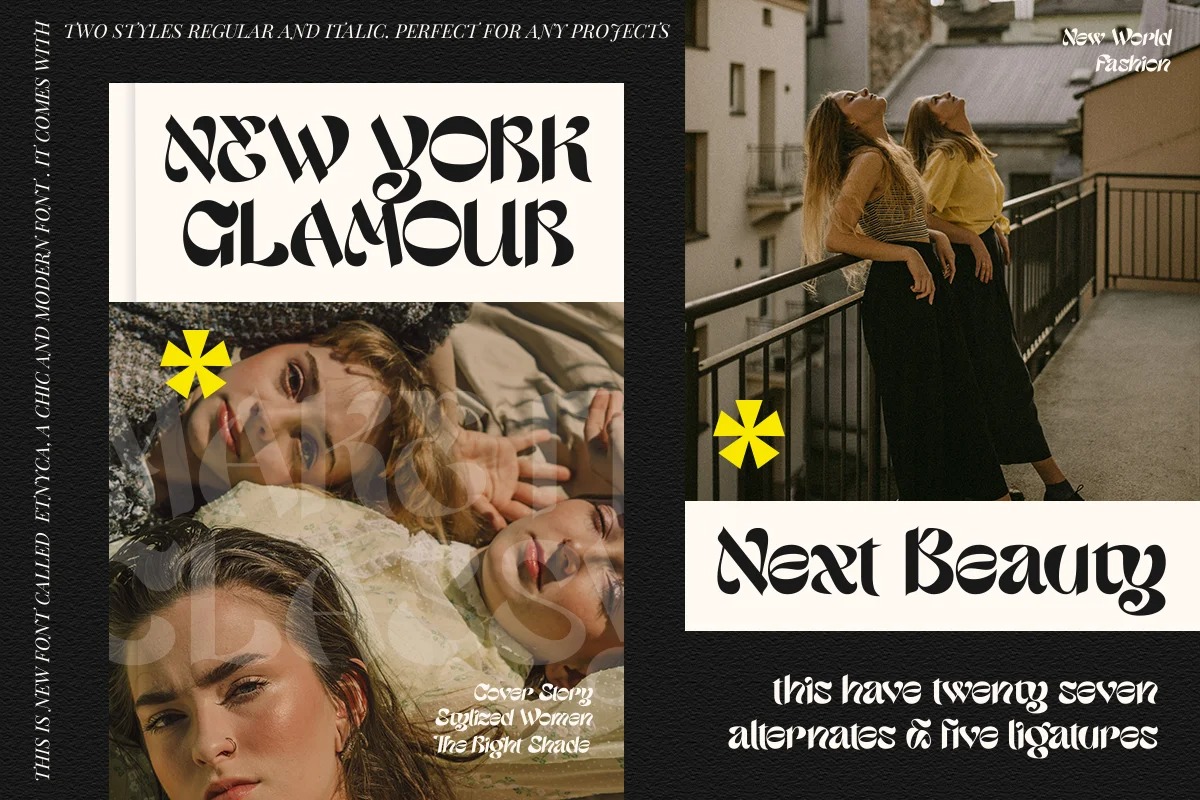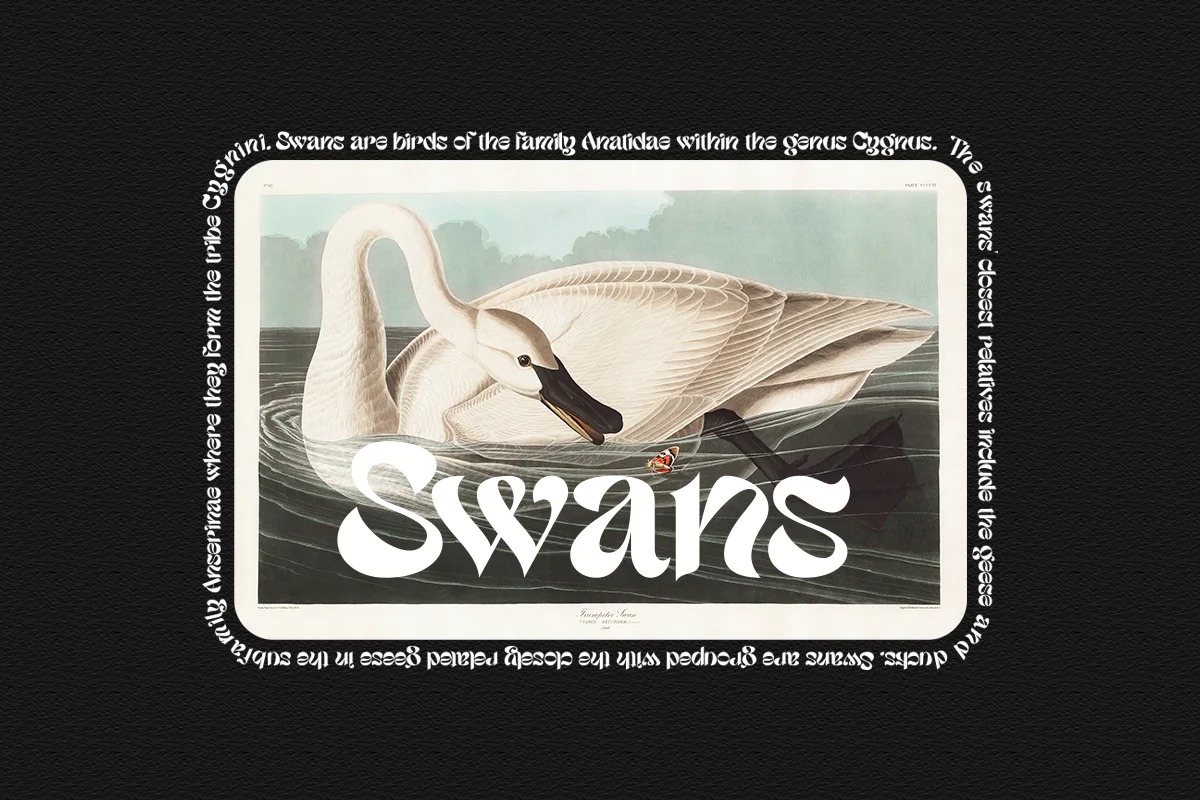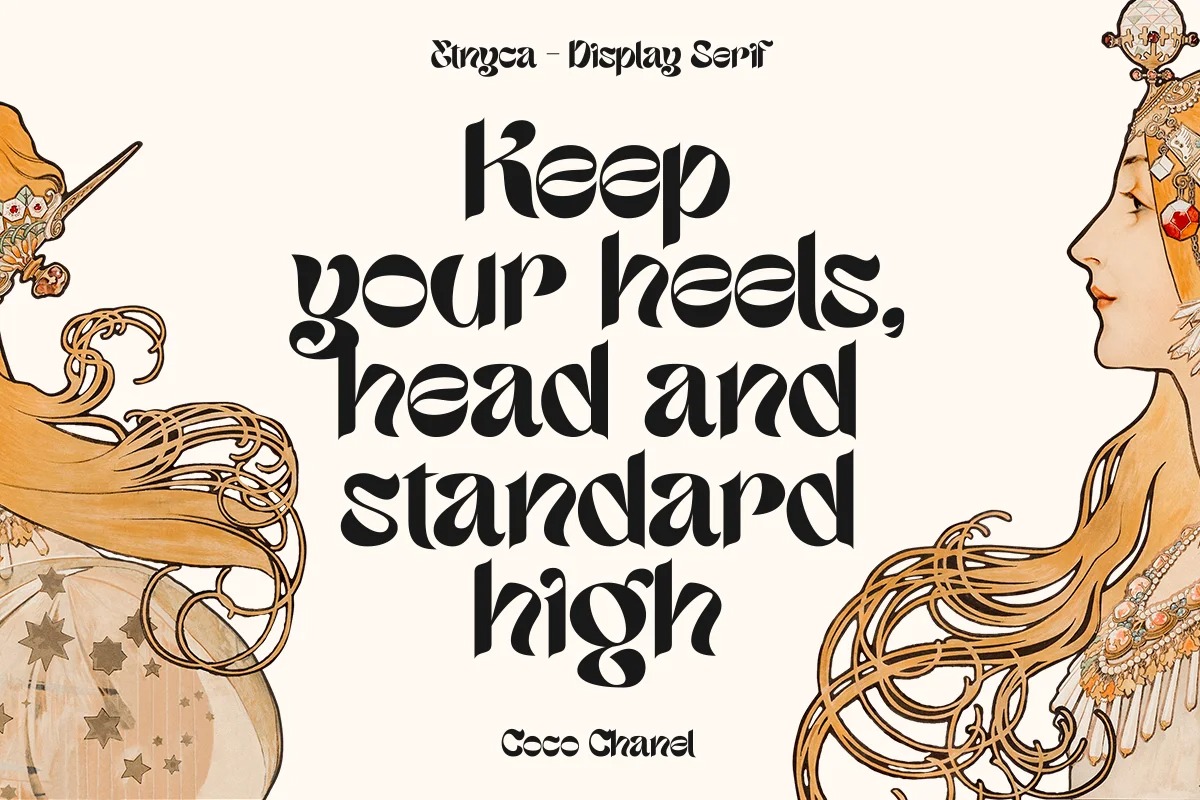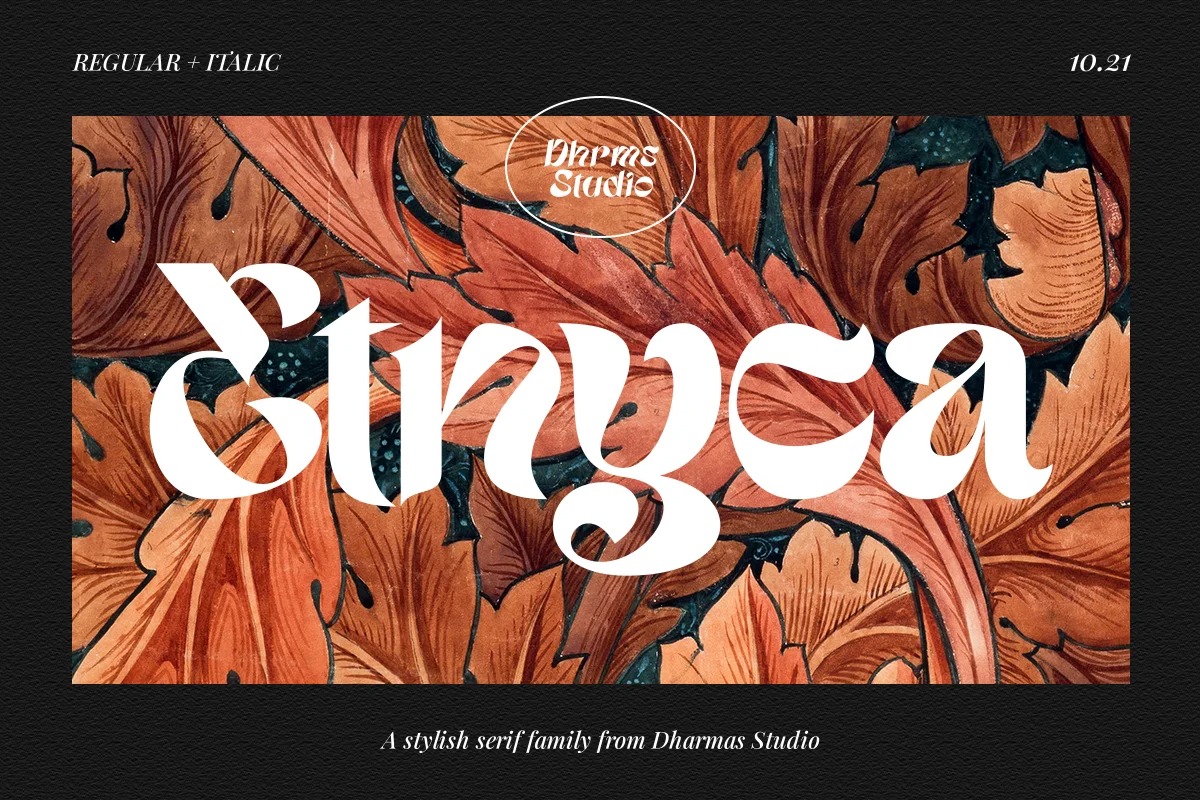
Etnyca Display Font
This font is retro, bold, and unique, really ties together your piece to give it that retro feel. Perfect if you want to add character to your project.
Etnyca fits perfectly too into those nostalgic mood boards and vintage logos. It comes with Italic style, unique lower and uppercase plus numbers, punctuation & multilingual letters